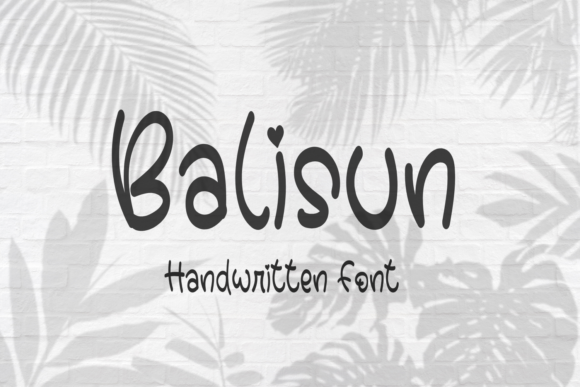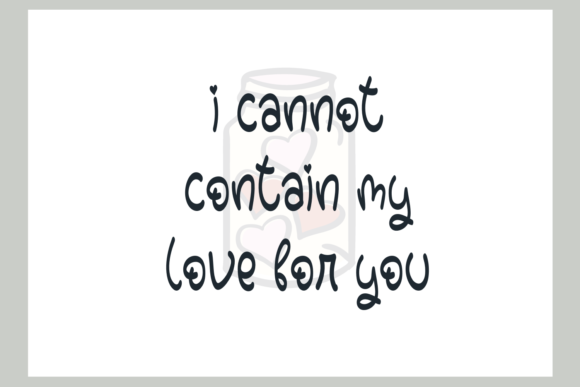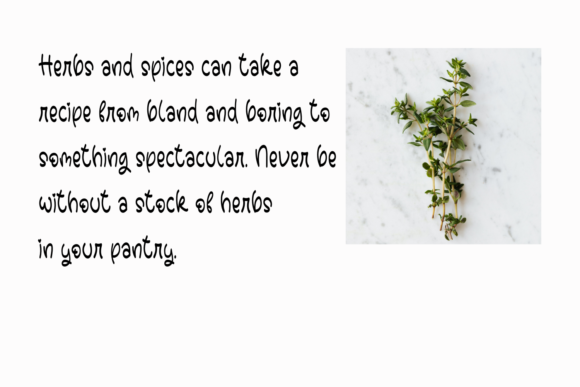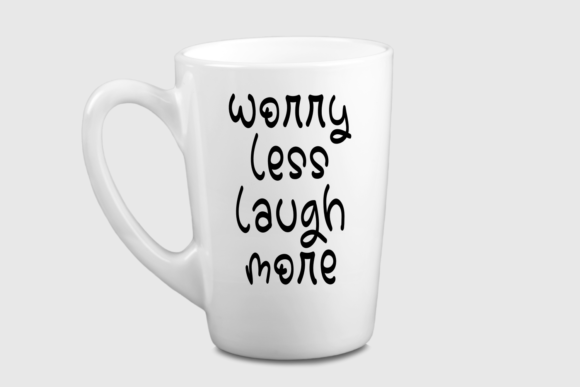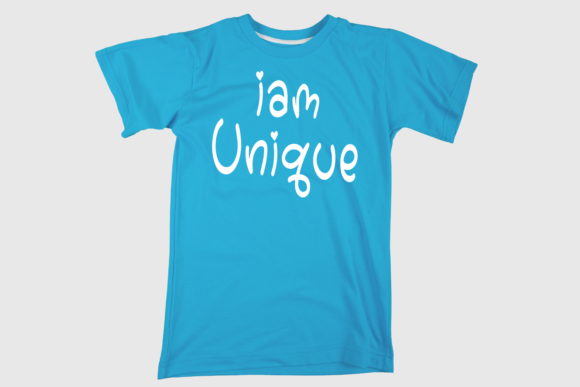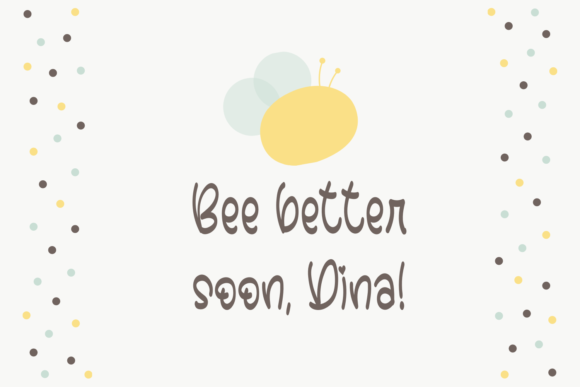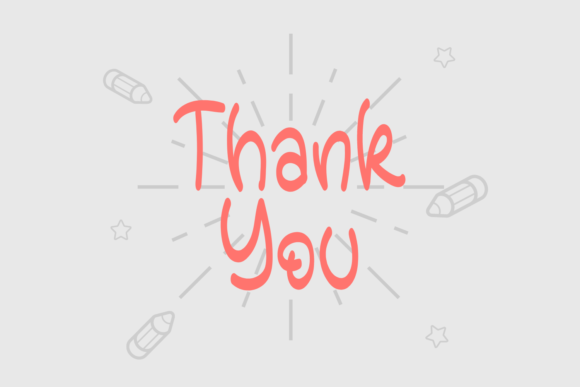
Balisun Font
About Balisun Font
Balisun is a sweet and delicate handwritten font. Readable and friendly, this font is incredibly fitting for a variety of designs, both formal and informal. Add it confidently and you won’t be disappointed.